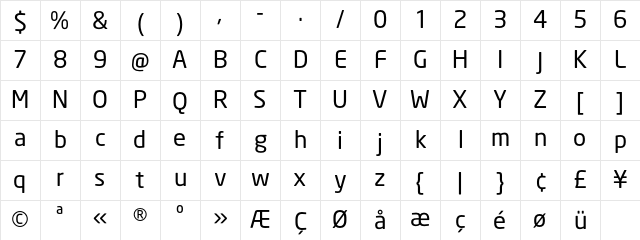
NeoSans Regular
Design Context for NeoSans
NeoSans is a composed and adaptable typeface that performs quietly and consistently across a wide range of design contexts.